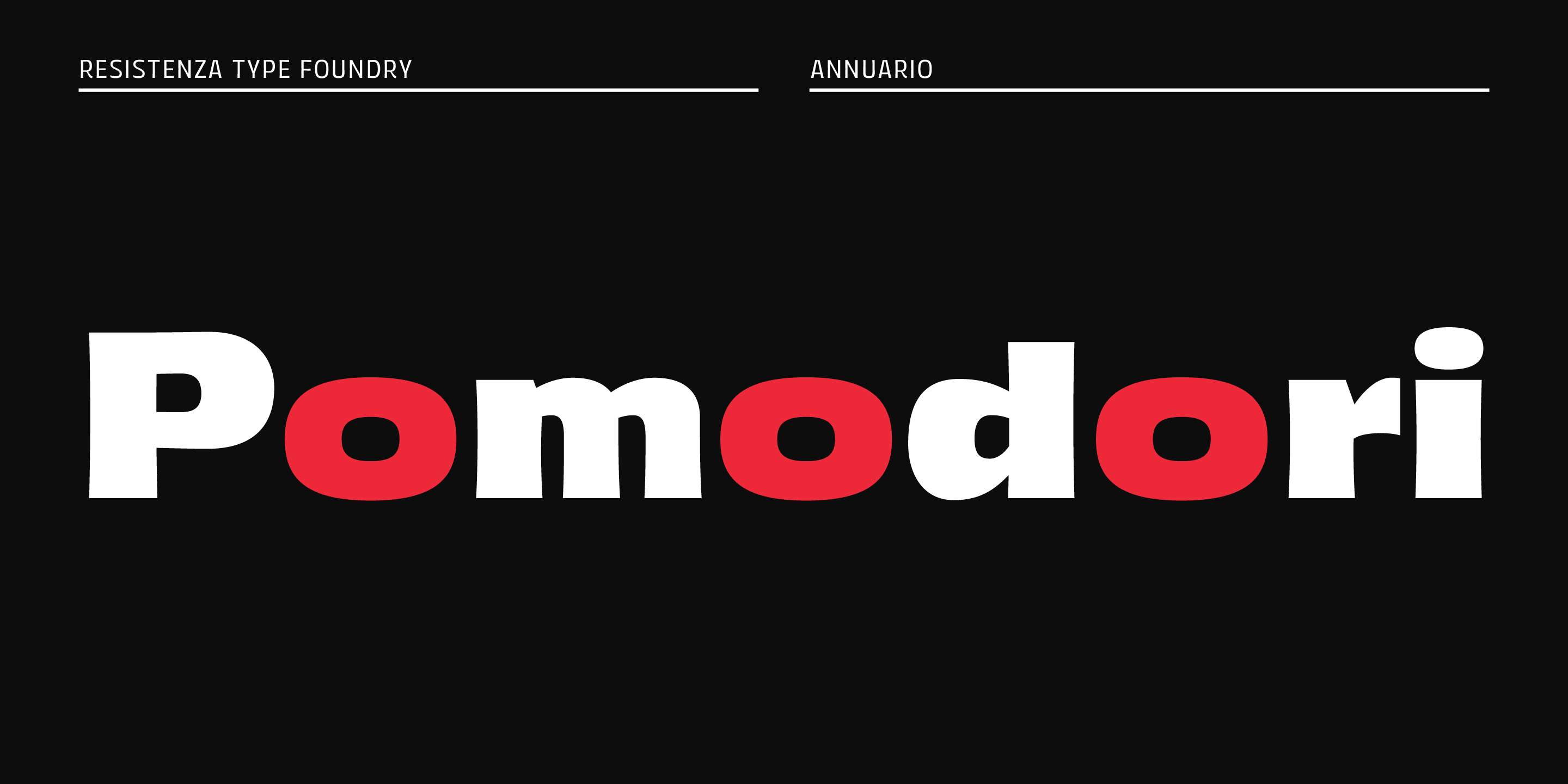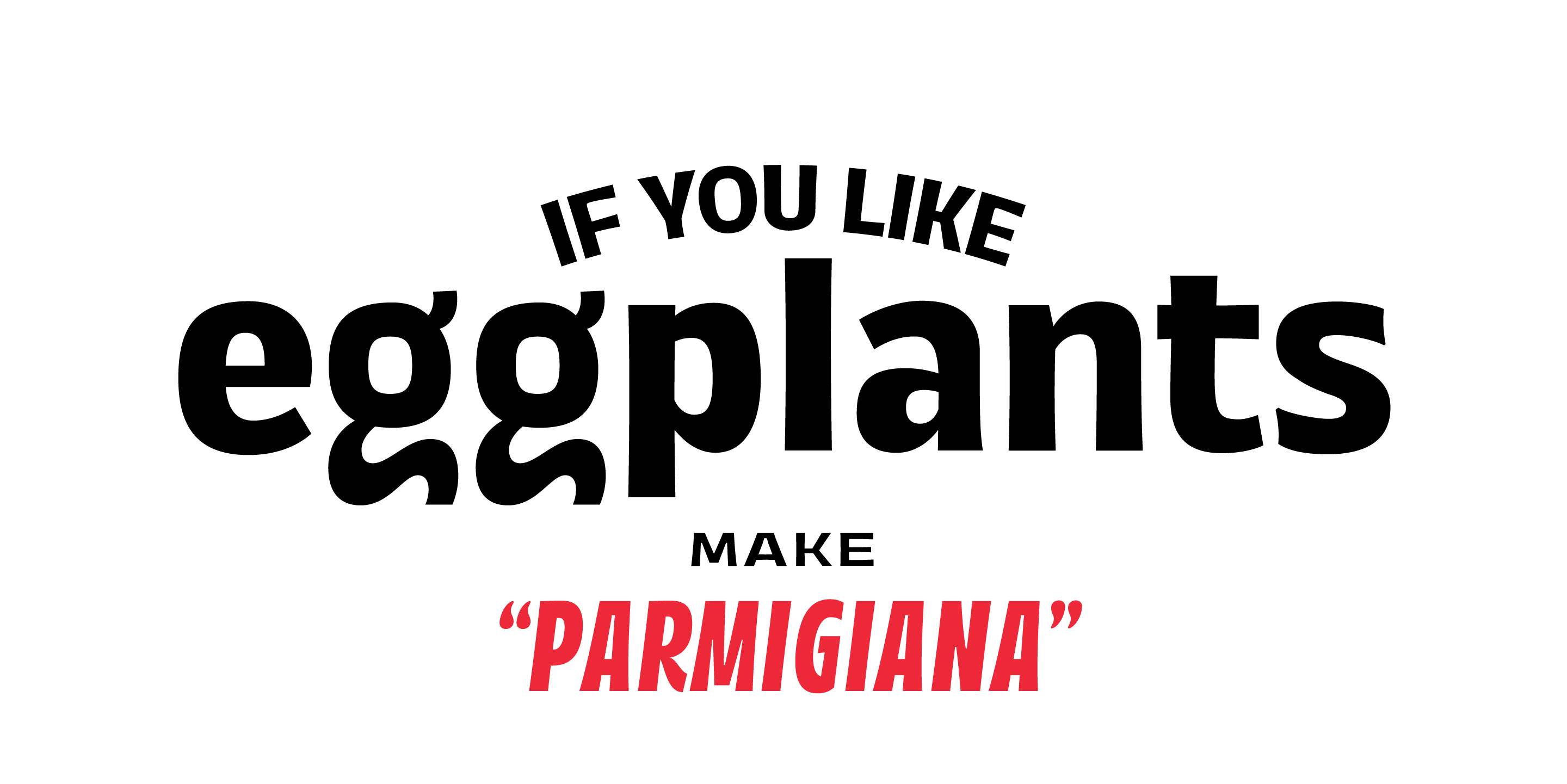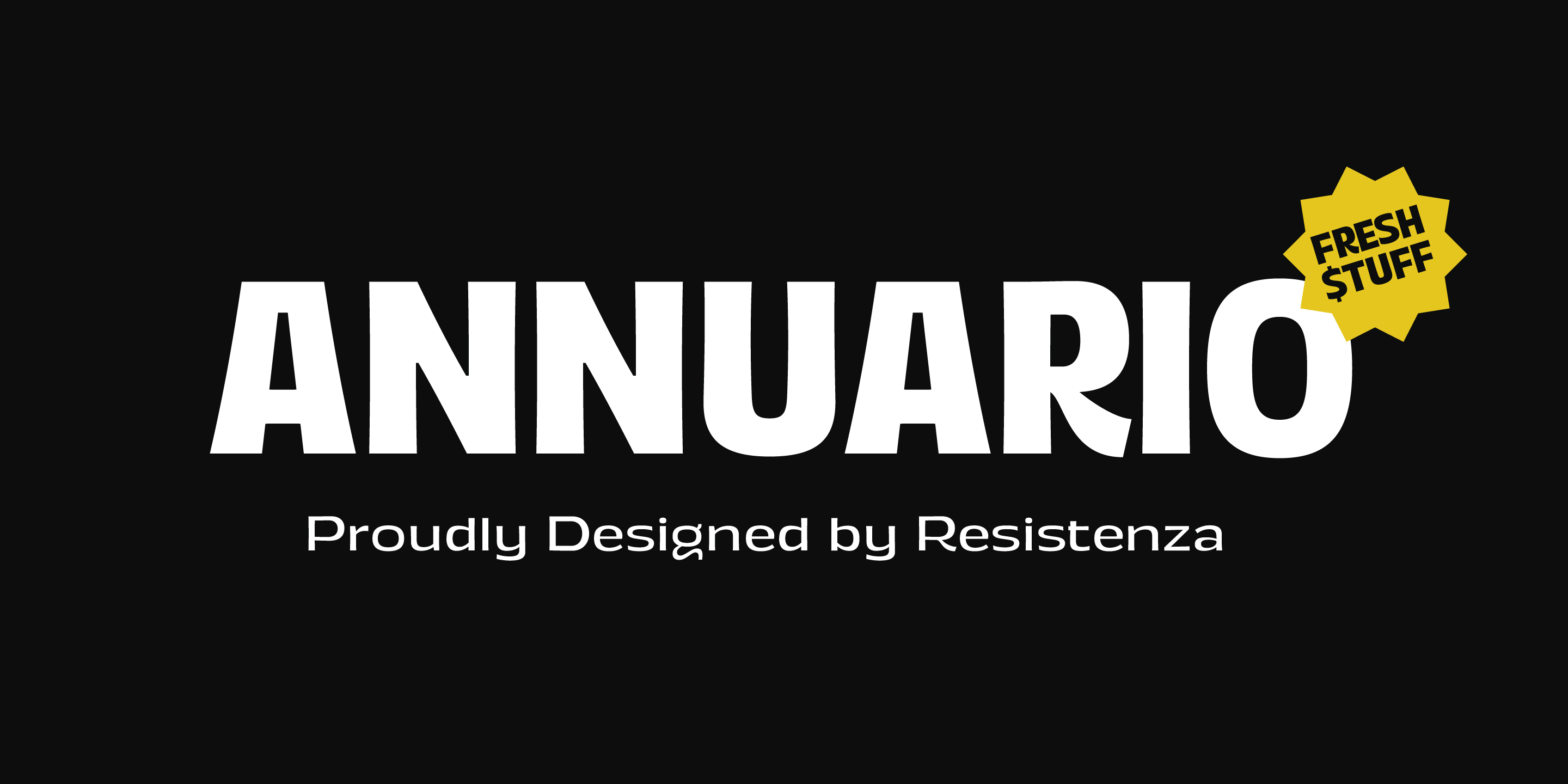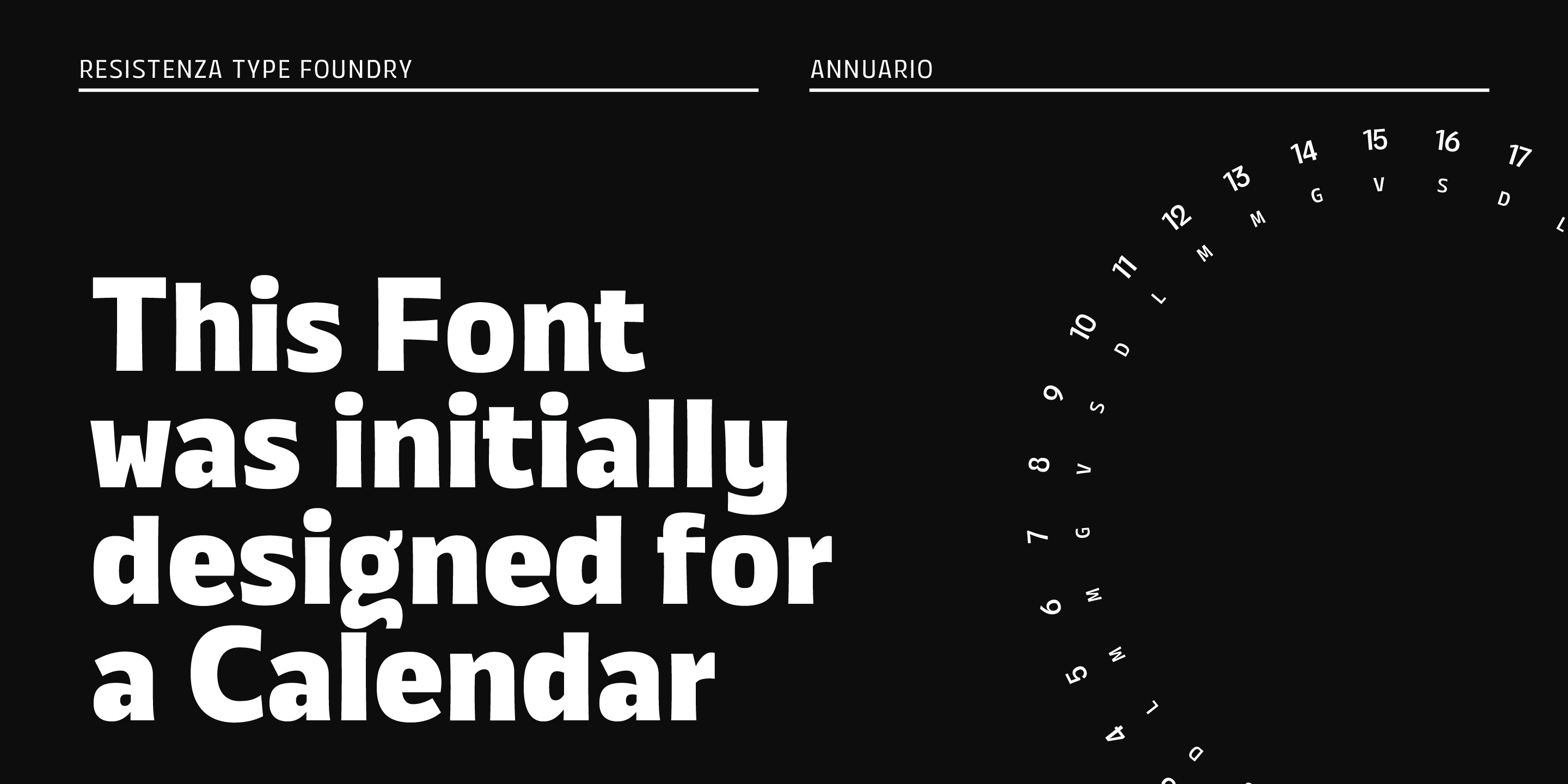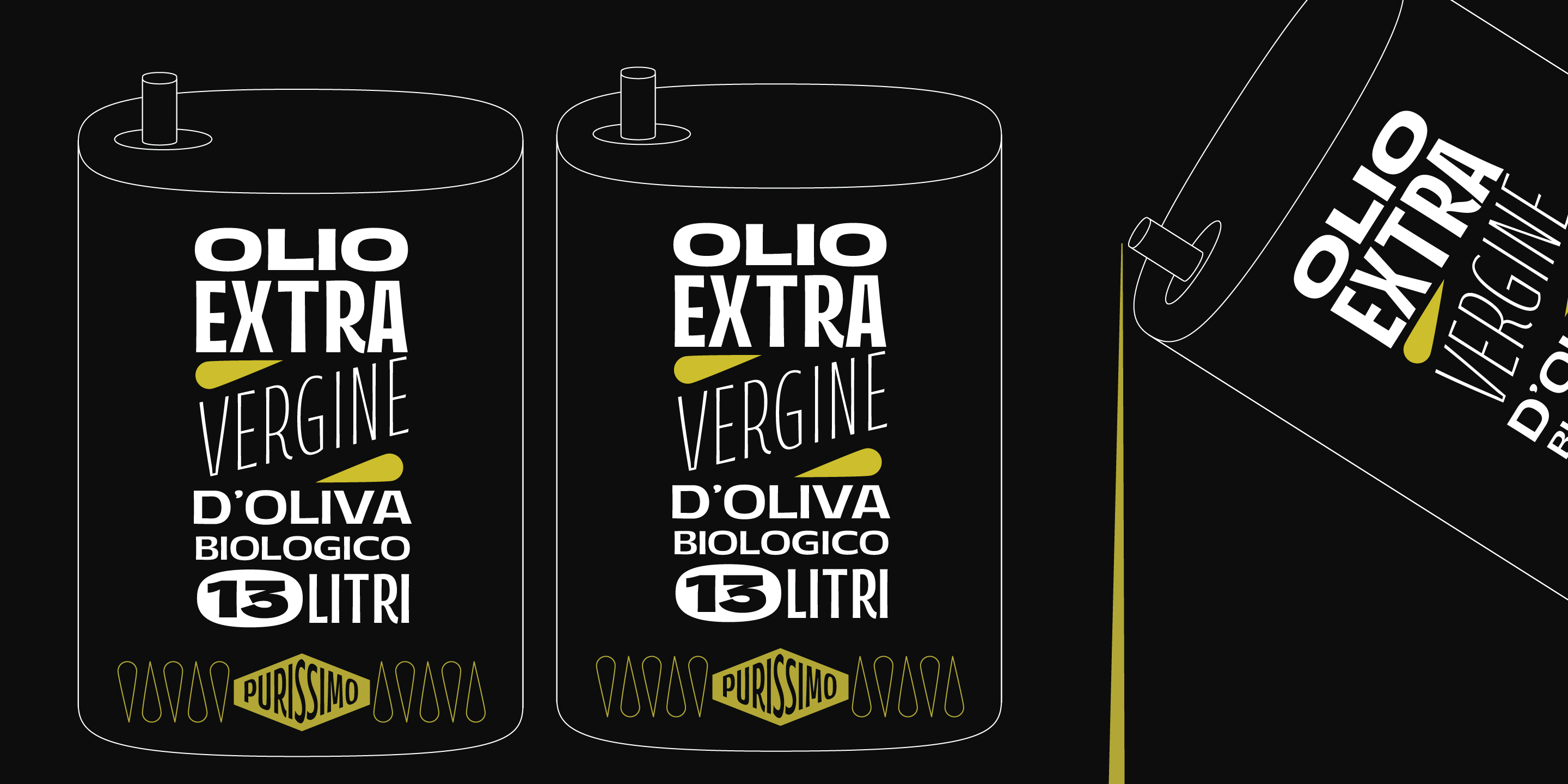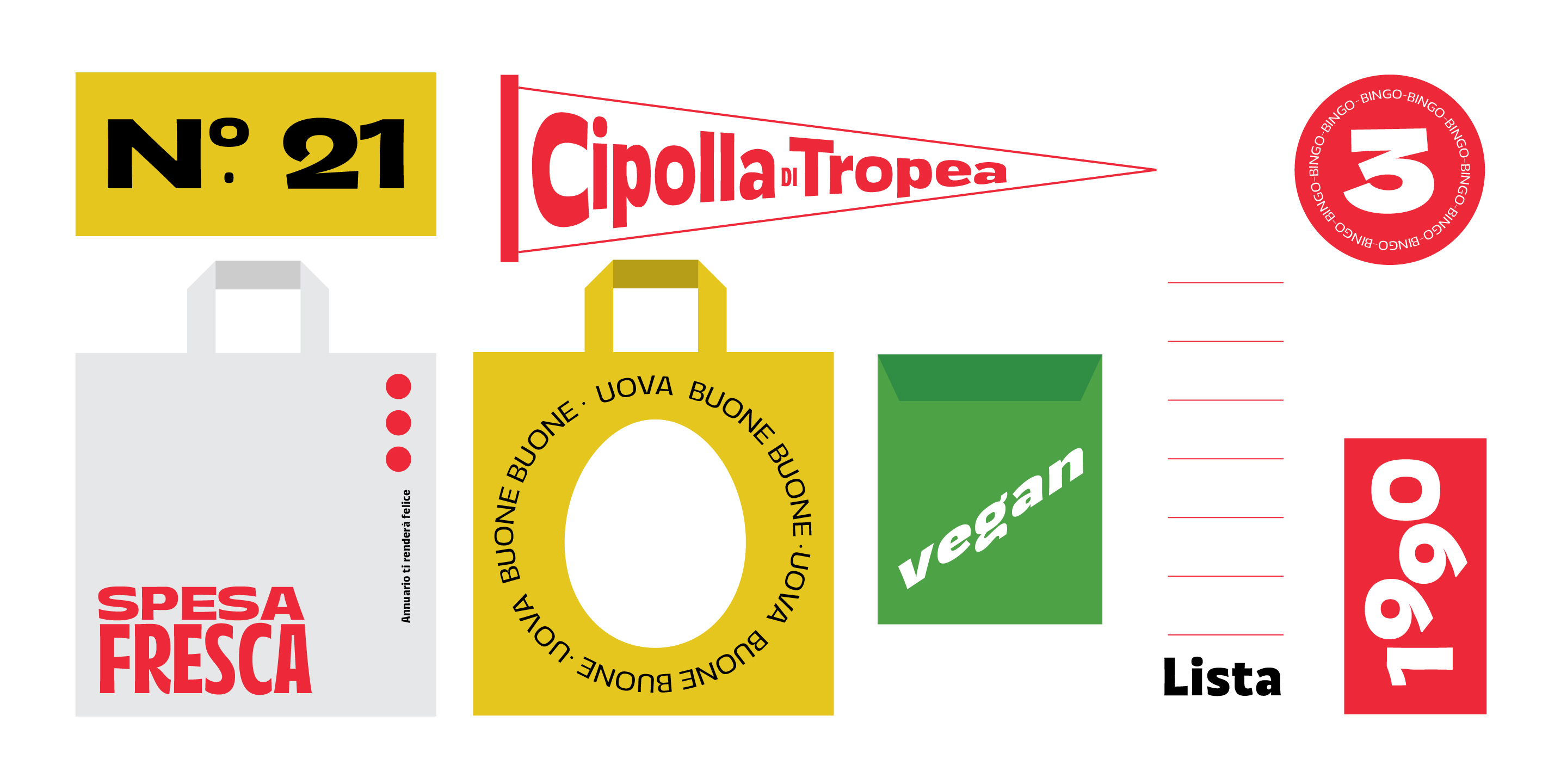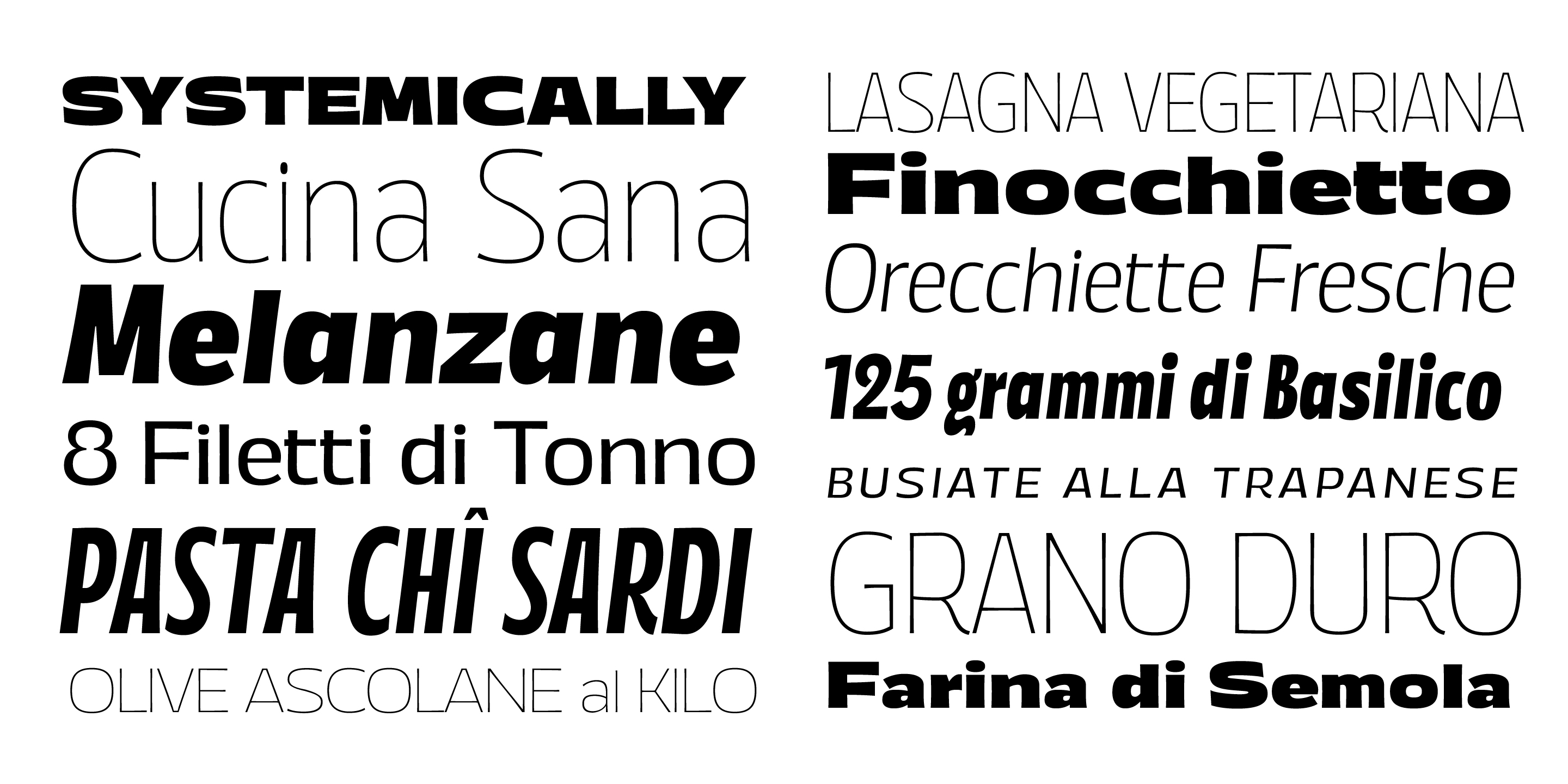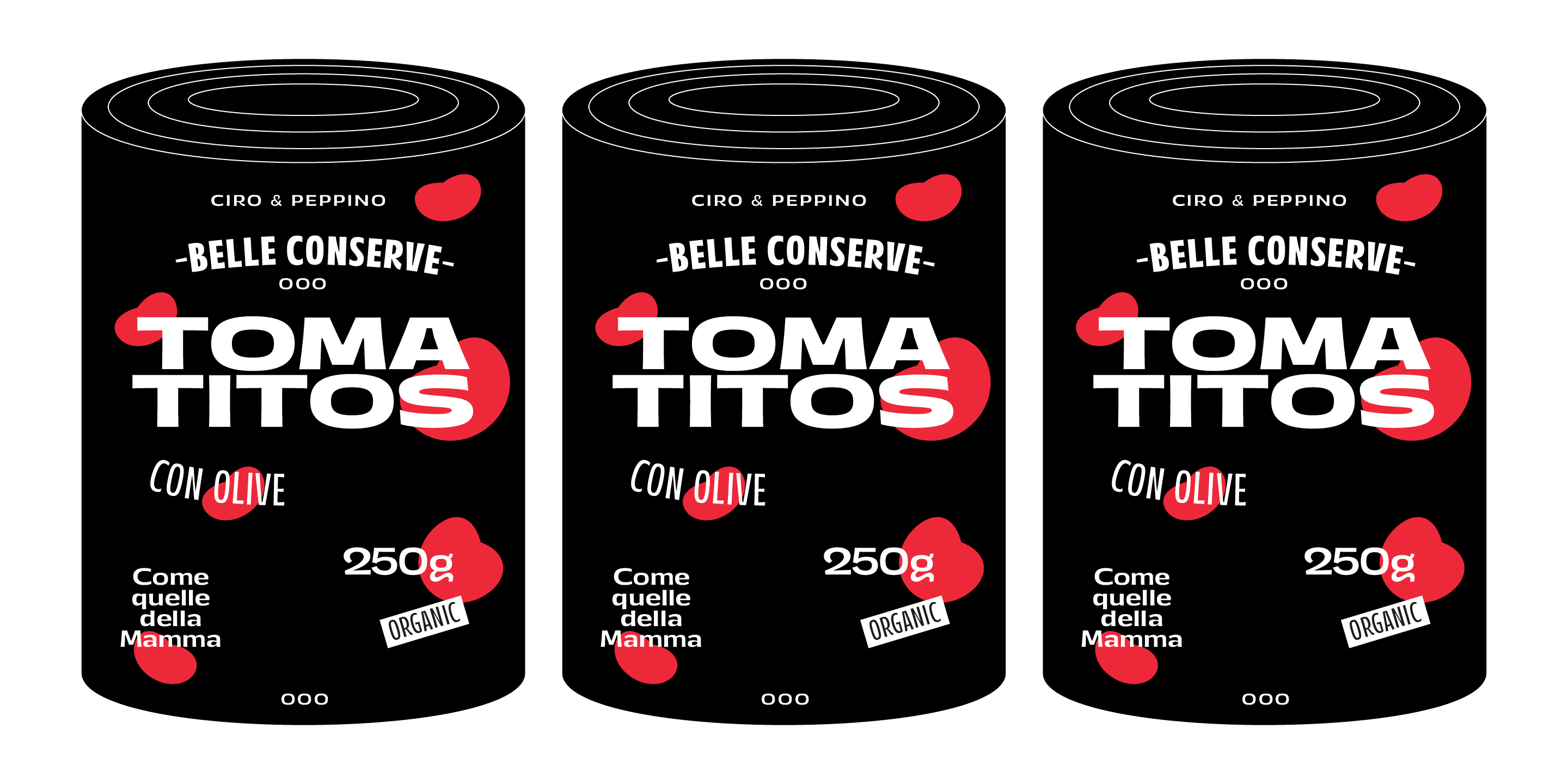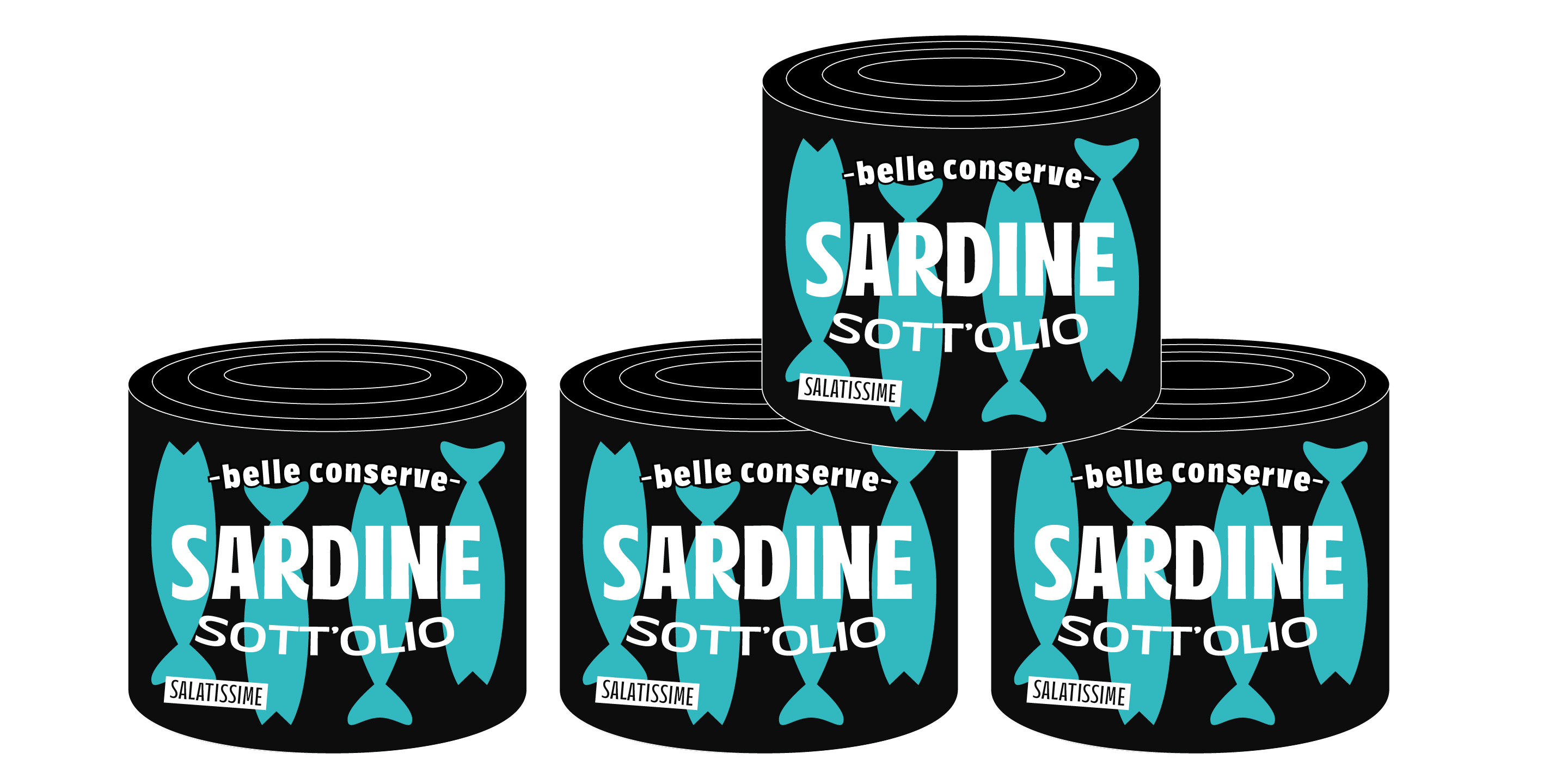
Annuario Collection
Annuario
Condensed Thin Condensed Light Condensed Medium Condensed Bold Condensed Black Thin Light Regular Medium Bold Black Wide Thin Wide Light Wide Wide Medium Wide Bold Wide Black Expanded Thin Expanded Light Expanded Medium Expanded Bold Expanded BlackA large sans serif with a brushy look
Annuario
Designed by Resistenza Type FoundryAnnuario is a sans serif multi-weight font family initially designed for a calendar. 48 fonts with 2 axes, a flexible family for many purposes.